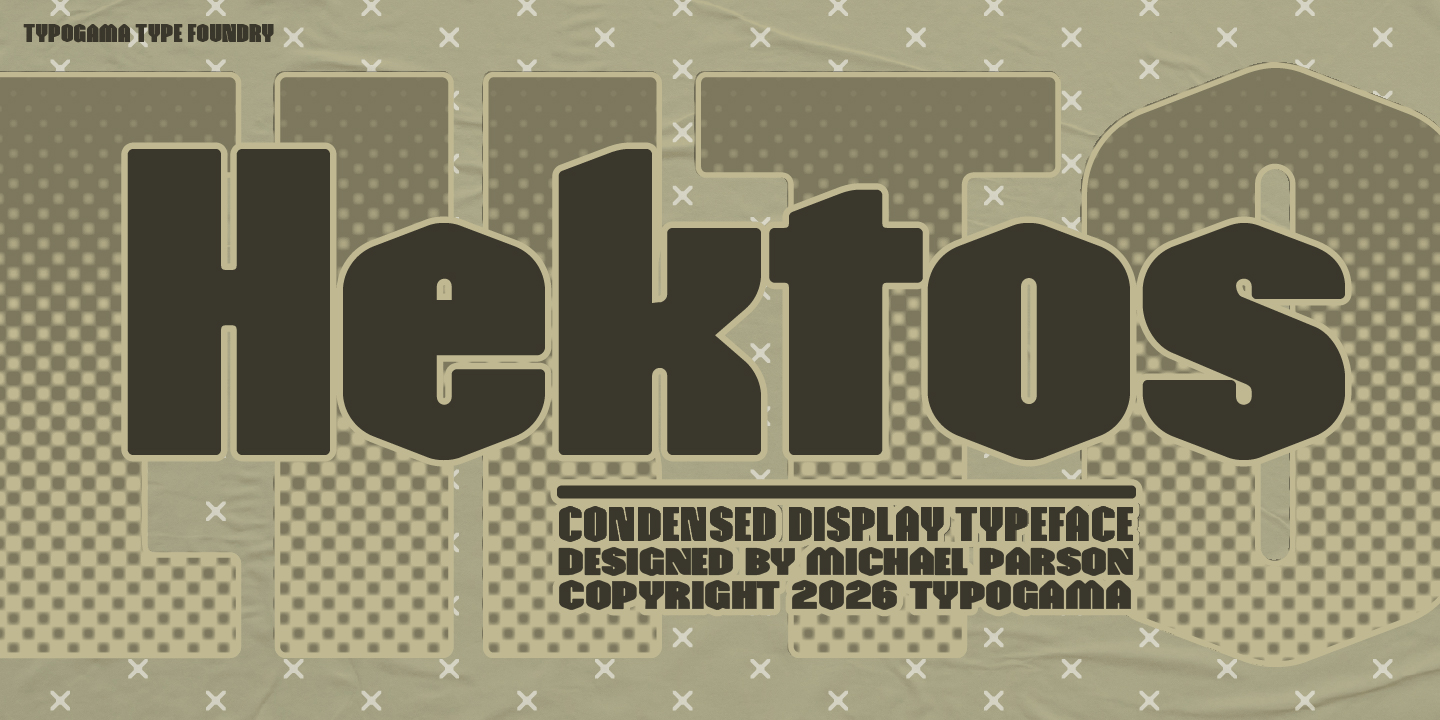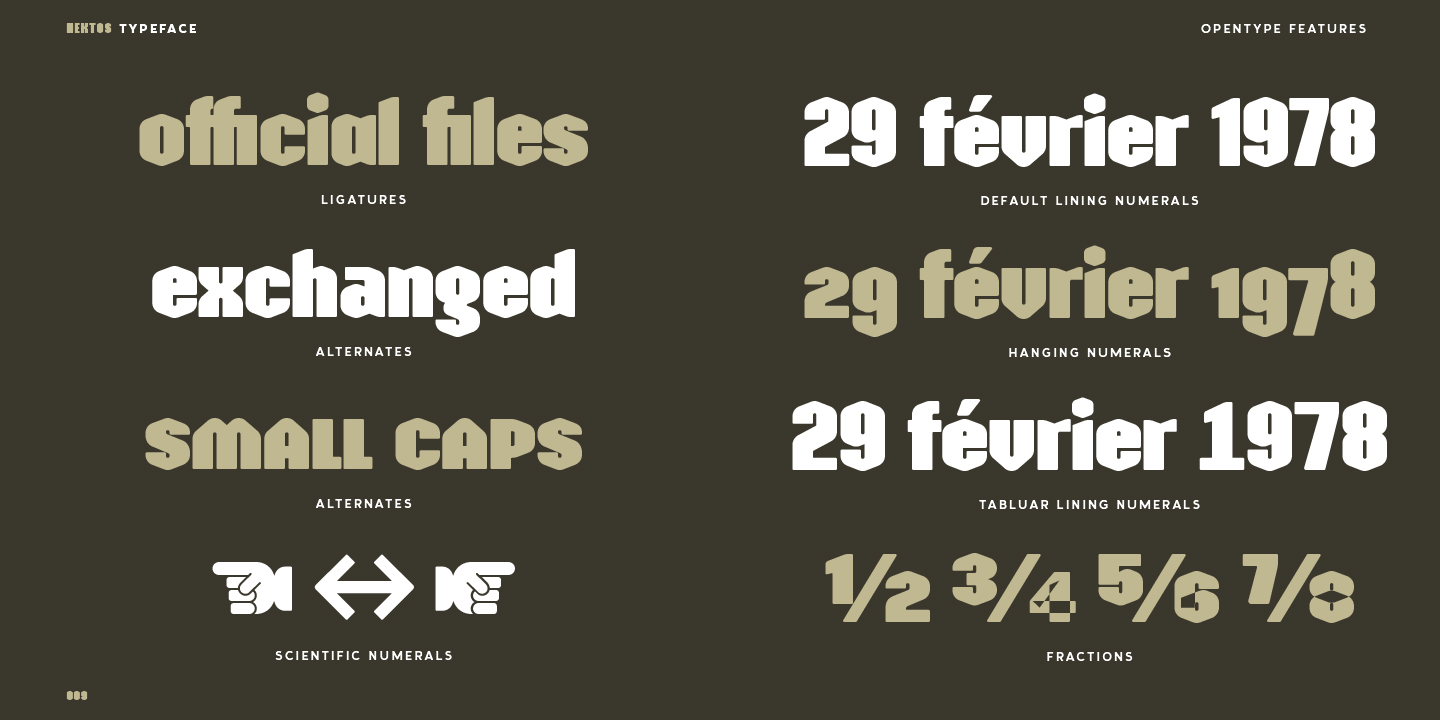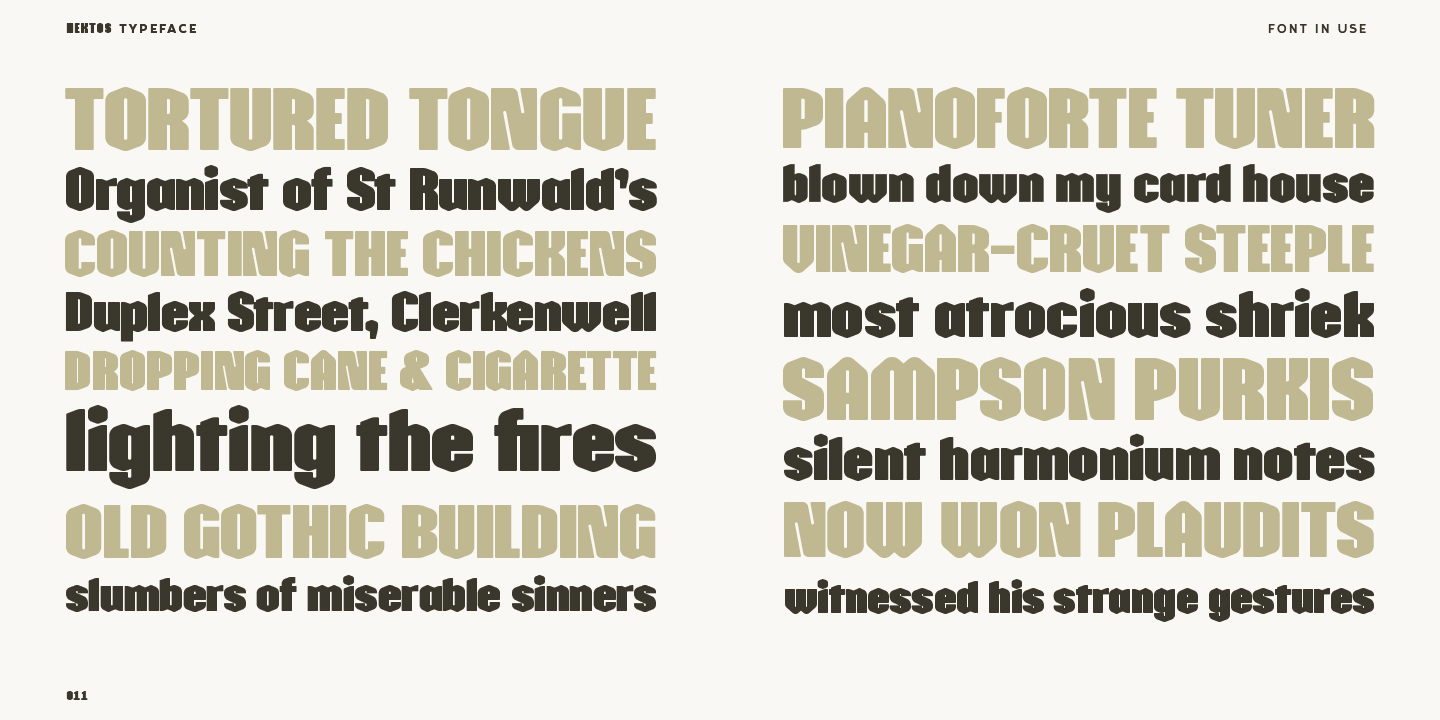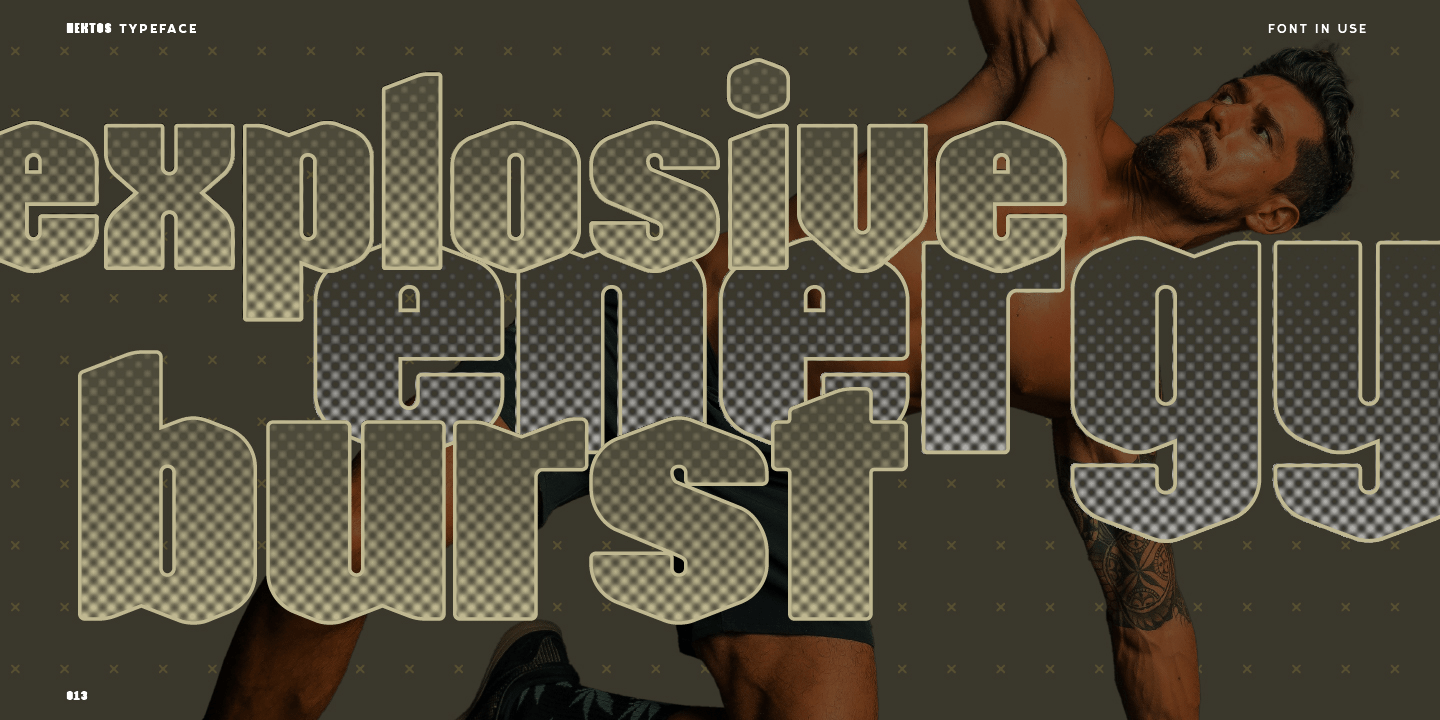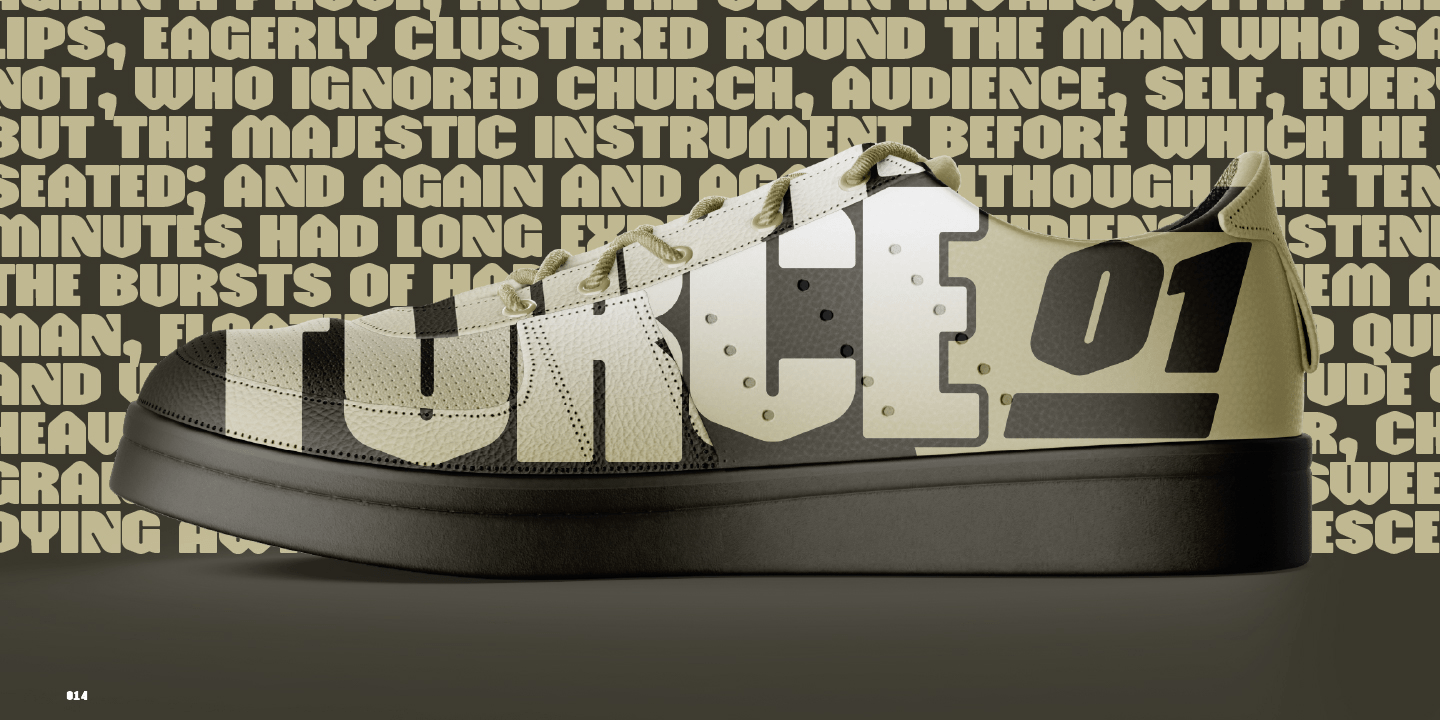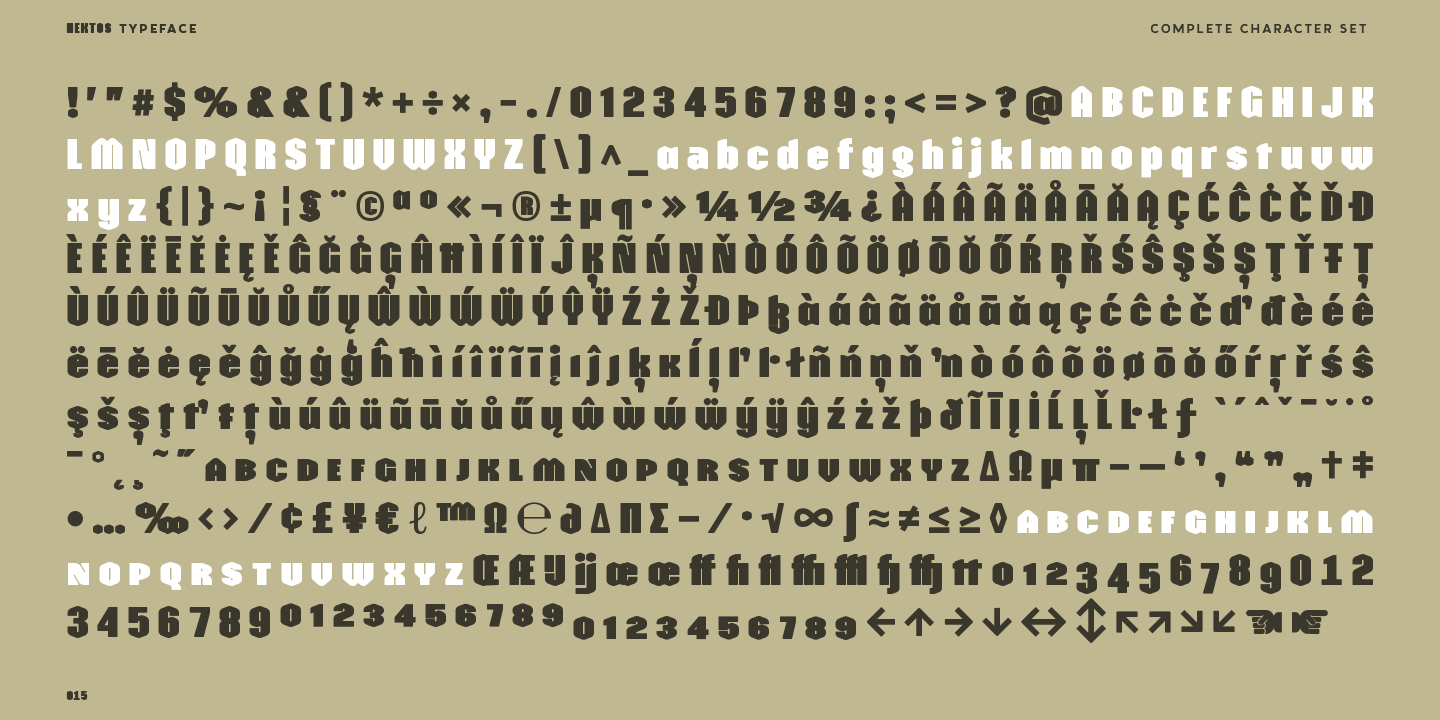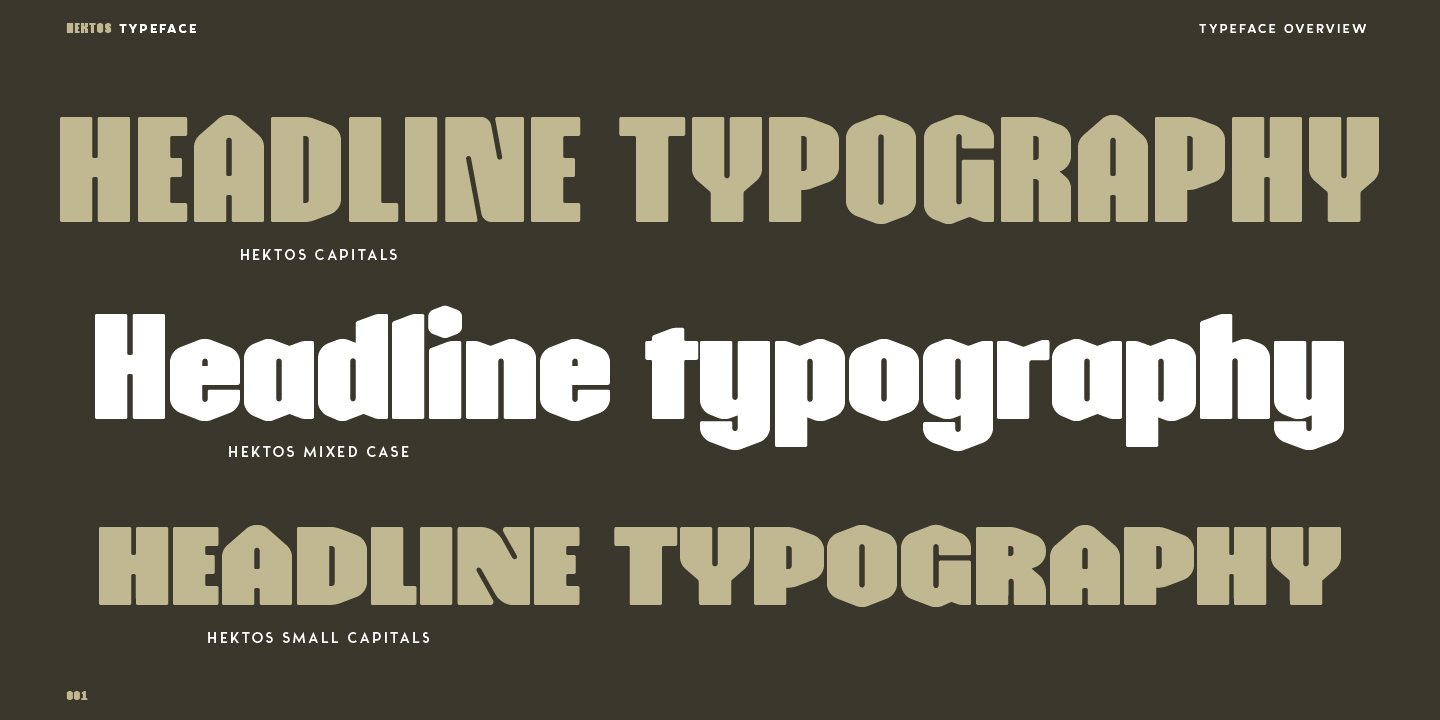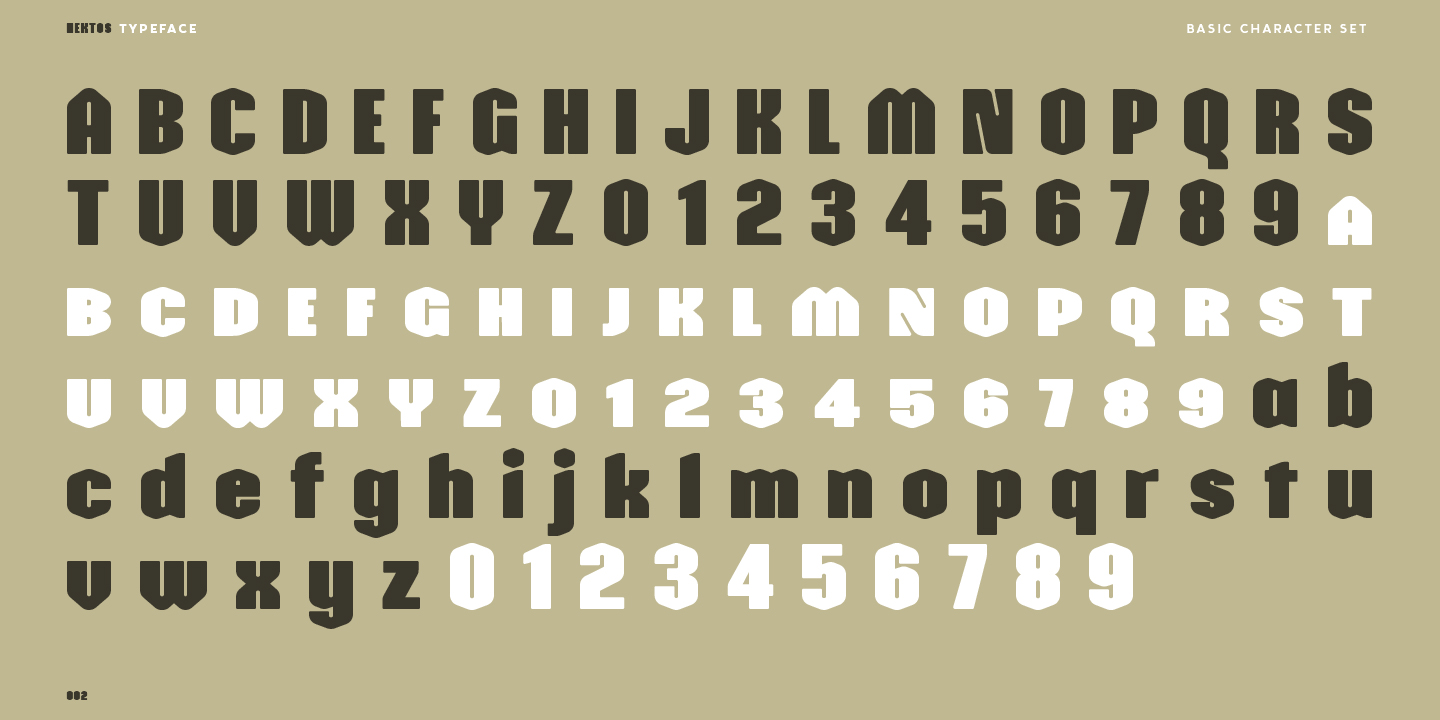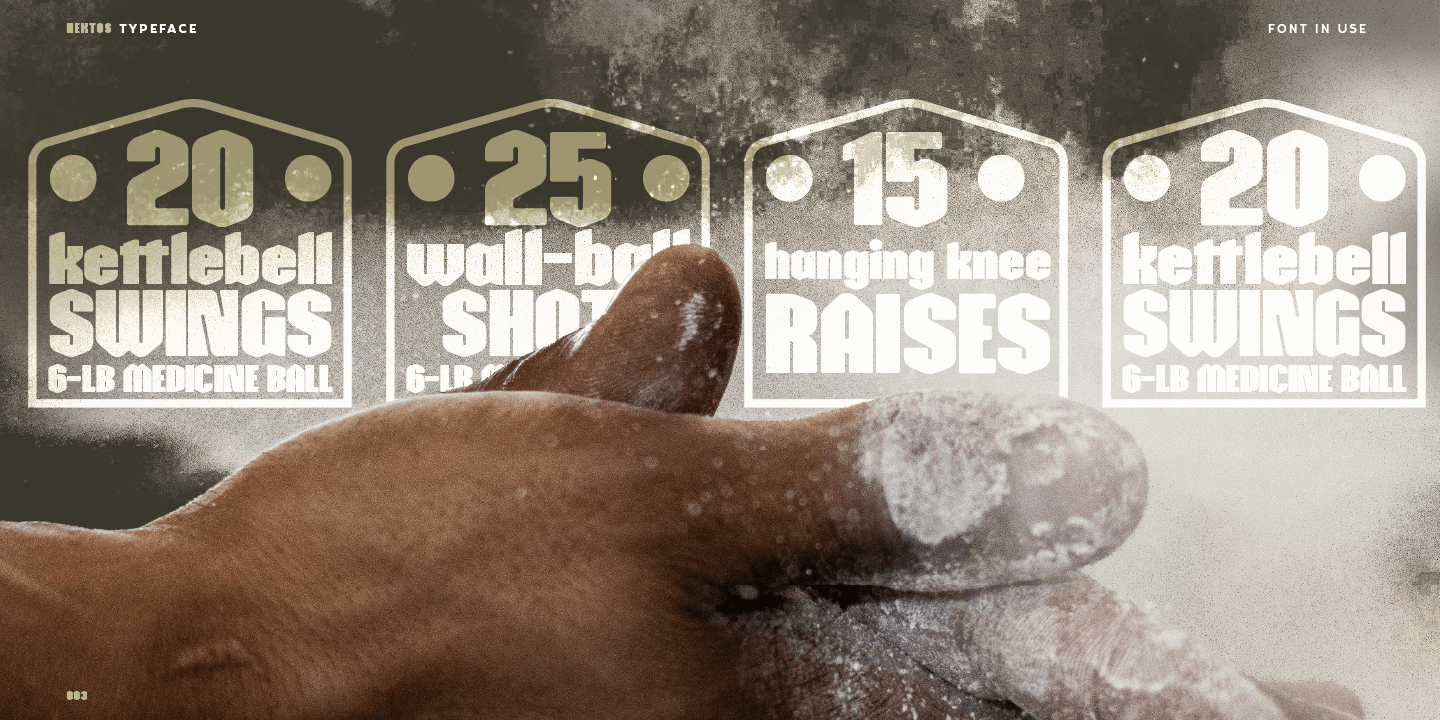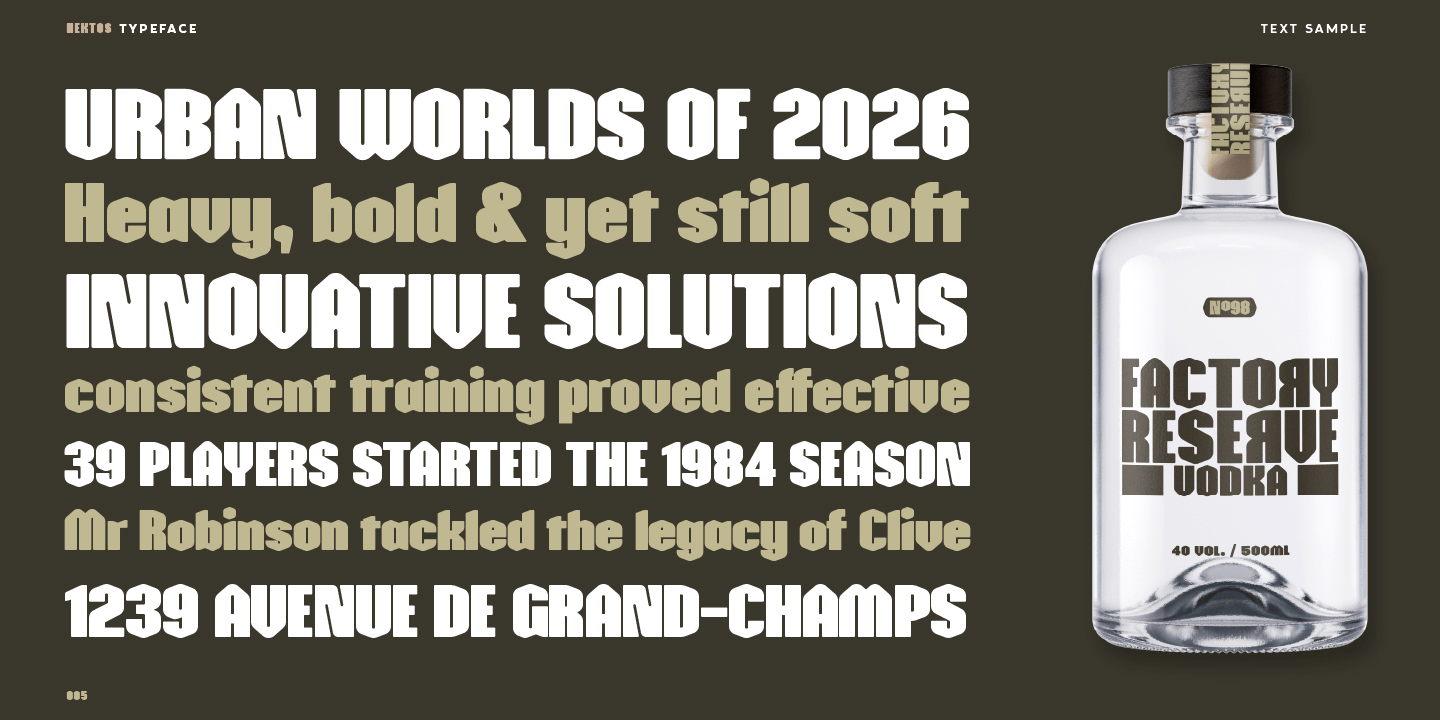
Hektos Regular
Font Family by Typogama
Hektos is a single weight, bold display typeface intended for use in headlines and branding. Built with a solid vertical base, the typeface blends linear rigidity with a soft and friendly approach on the terminals and angles to produce a unique voice.
Hektos includes an extended Latin character set that covers over 250 different languages and is delivered with a range of Opentype features, such as ligatures, alternates, or various styles of numerals, to offer a complete solution.